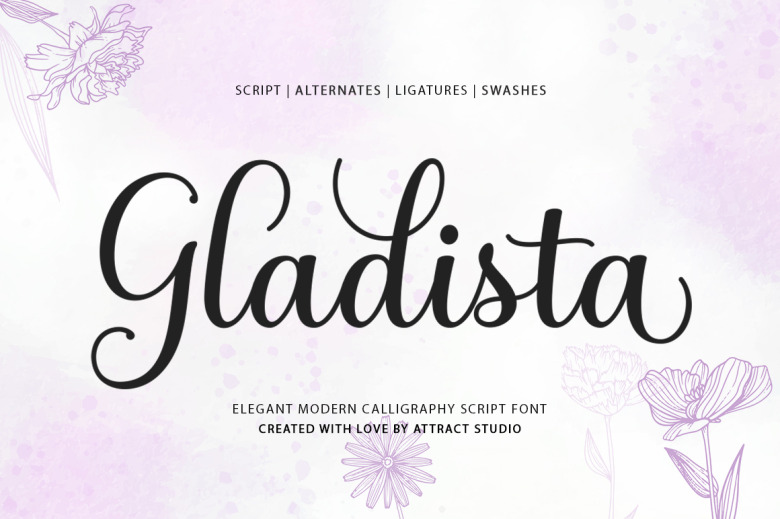
Gladista is a calligraphy script font containing exquisite alternates. It blends copperplate calligraphy’s flowing lines with a modern hand lettered flair. Attractive yet understated, Gladista emanates an aura that feels at once feminine, sensual, and glamorously simple while maintaining excellent legibility. Suited for both traditional and contemporary applications, Gladista’s classic yet versatile style lends itself to formal pieces ranging from lavish invitations and elegant labels to sophisticated menus, logos, and greeting cards.
Gladista Calligraphy Script Font